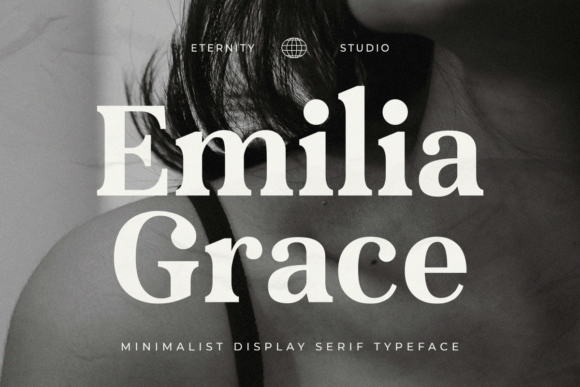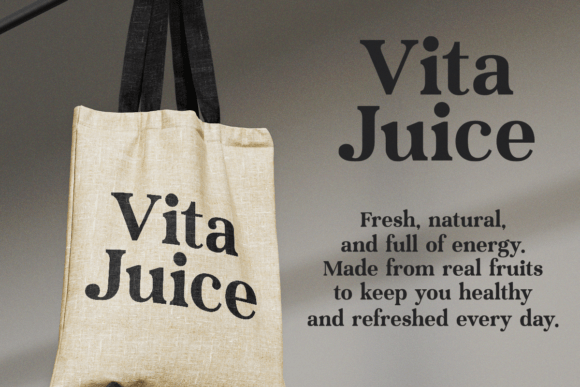
Et Emilia Grace Font
ET Emilia Grace – A Modern Elegant Serif Font
ET Emilia Grace is a modern serif font that blends elegance and sophistication with timeless appeal. Featuring clean lines and refined details, this typeface is perfect for both classic and contemporary design projects, ensuring your visuals stand out with style and grace.
This versatile font is ideal for branding and logo design, editorial layouts such as magazines, books, and catalogs, as well as wedding invitations and stationery where a romantic and elegant touch is desired. It also works beautifully for posters, packaging, product designs, and both digital and print projects that require a stylish serif aesthetic.
With ET Emilia Grace, your designs will exude sophistication, versatility, and professional appeal, making it the ideal choice for creating memorable and impactful visuals.